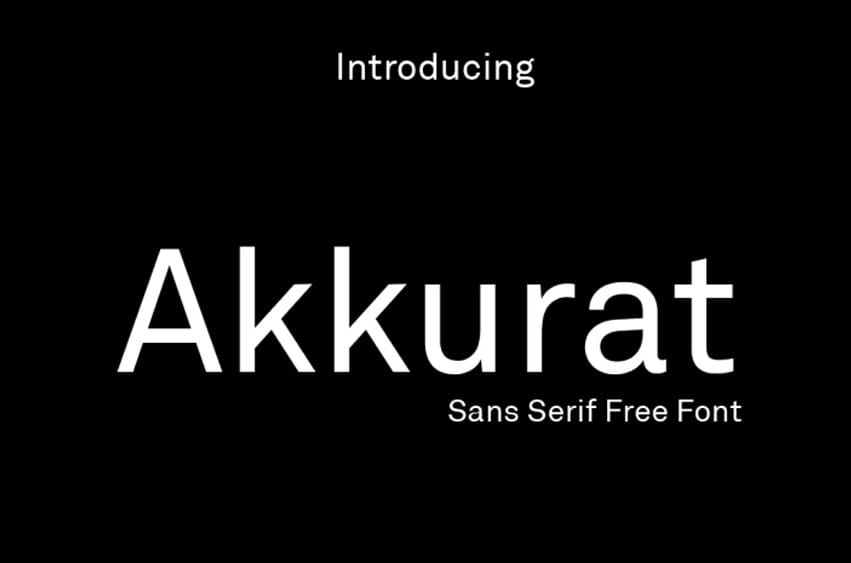
Akkurat Font Today we are delighted to introduce an elegant typeface designed by Swiss design expert Laurenz Brunner for use by Lineto type foundry in 2004.
Welcome to the Akkurat Font Family! Since its introduction into local communities, Akkurat font has quickly become well-known and many designers utilize this sans serif typeface in their daily design work methods.